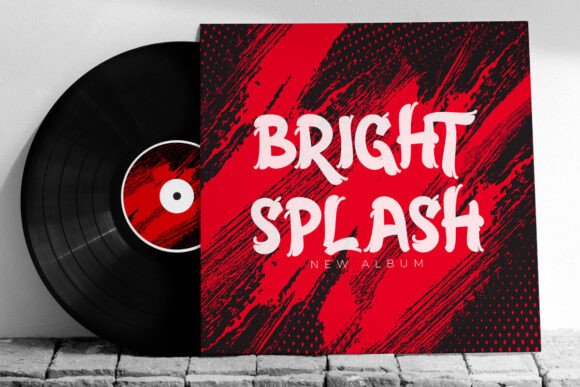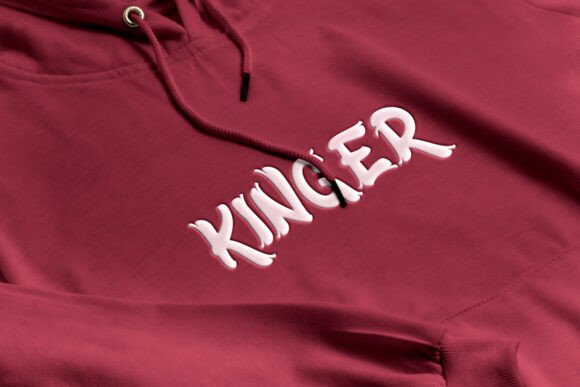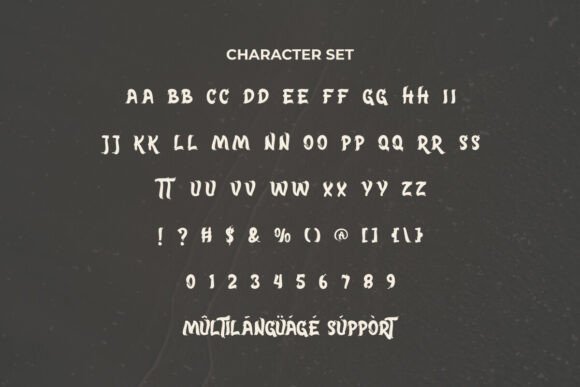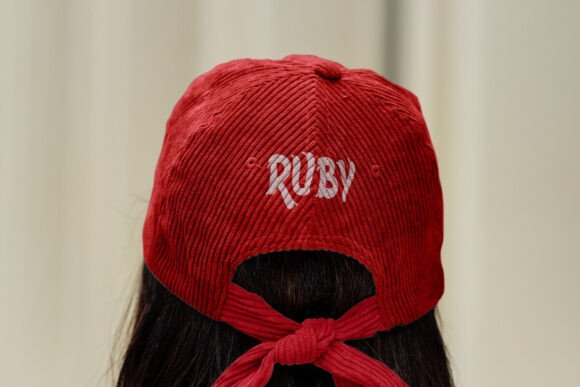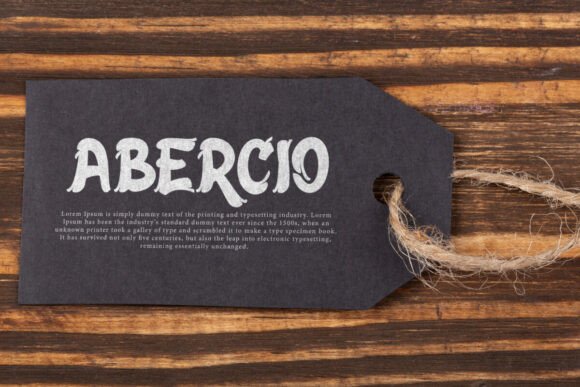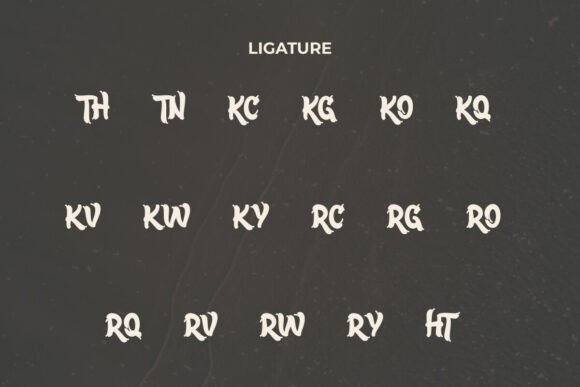
Unleash Your Creativity with Bright Splash Font
Have you ever been in the middle of a design project, staring at a blank page, and suddenly the perfect font pops into your head? It’s like a spark of inspiration that sets your creative juices flowing. For designers, finding that perfect font can make all the difference in bringing a project to life.
Enter Bright Splash Font, a stunning typeface designed to elevate your designs to new heights. This versatile font is perfect for a wide range of projects, from billboards to business cards, and everything in between. With its full set of characters, numbers, and punctuation, Bright Splash Font is a valuable addition to any designer’s toolkit.
Whether you’re working on a brand logo, brochure, or website, Bright Splash Font is sure to make your design stand out from the crowd. Its perfectly managed spacing and kerning ensure that your text looks professional and polished, every time.
Bright Splash Font Key Features
- Unique Characteristics: Bright Splash Font features a unique blend of modern and playful letterforms, making it perfect for creative and attention-grabbing designs
- Kerning and Ligatures: Includes advanced kerning and ligature pairs for professional typography
Bright Splash Font Review
Overall, I’d say the Bright Splash Font is a fun and playful addition to any design project. ✨ Its bold, vibrant colors and quirky shapes make it perfect for creating eye-catching graphics and illustrations. I’ve used it for a few projects, and it’s always a crowd-pleaser.
- What works well:
- Its bold, playful feel makes it perfect for children’s products or entertainment brands.
- The font is highly customizable, allowing for endless variations and color combinations.
- It’s great for creating attention-grabbing headlines and titles.
However, I do have a few reservations about the Bright Splash Font. ⚠️ While it’s great for bold, eye-catching designs, it may not be the best choice for more formal or professional projects. The font’s playful feel may come across as unprofessional in certain contexts.
Overall, I’d recommend the Bright Splash Font for designers who want to add a bit of whimsy and fun to their projects. Just be mindful of the font’s limitations and use it accordingly.
Tips for Getting the Most Out of Bright Splash Font
Use Bright Splash Font for eye-catching headings and titles.
Combine with bold colors to create a visually appealing design.
Experiment with different font sizes and styles to add depth and interest to your design.
Bright Splash Font is ideal for:
Creative projects, such as posters, flyers, and brochures.
Branding and marketing materials, such as logos and business cards.
Web design, particularly for headings and titles.